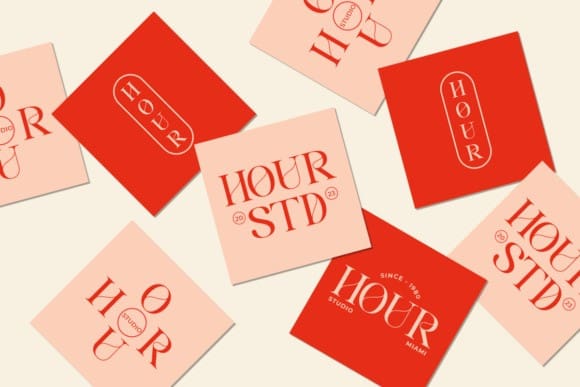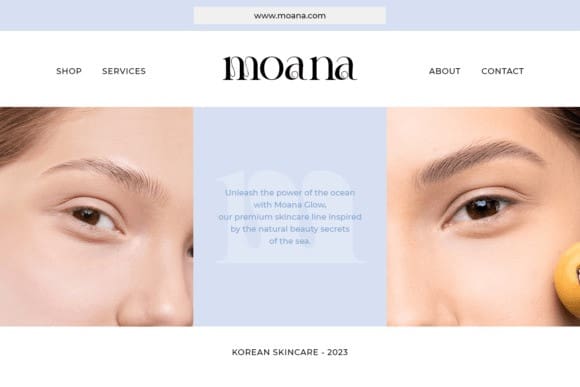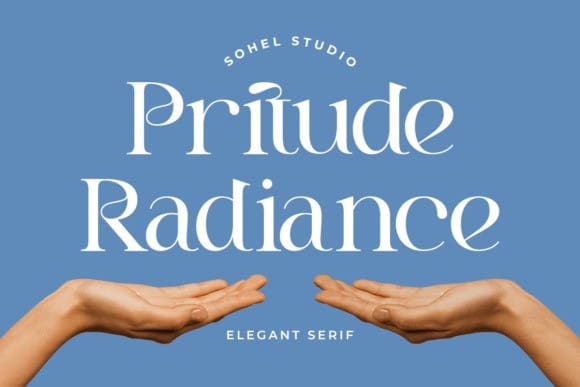
Pritude Radiance Font
Pritude Radiance Font is a contemporary and elegant serif typeface designed for sophisticated branding. With distinctive alternative characters and comprehensive multilingual support, it ensures impeccable kerning. Ideal for creating refined and luxurious logos, stylish editorial layouts, women’s magazines, high-end fashion and cosmetic brands, fashion promotions, modern advertising designs, elegant invitations, art quotes, home decor, book and cover titles, special events, tote bags, t-shirts, advertisements, and so much more.